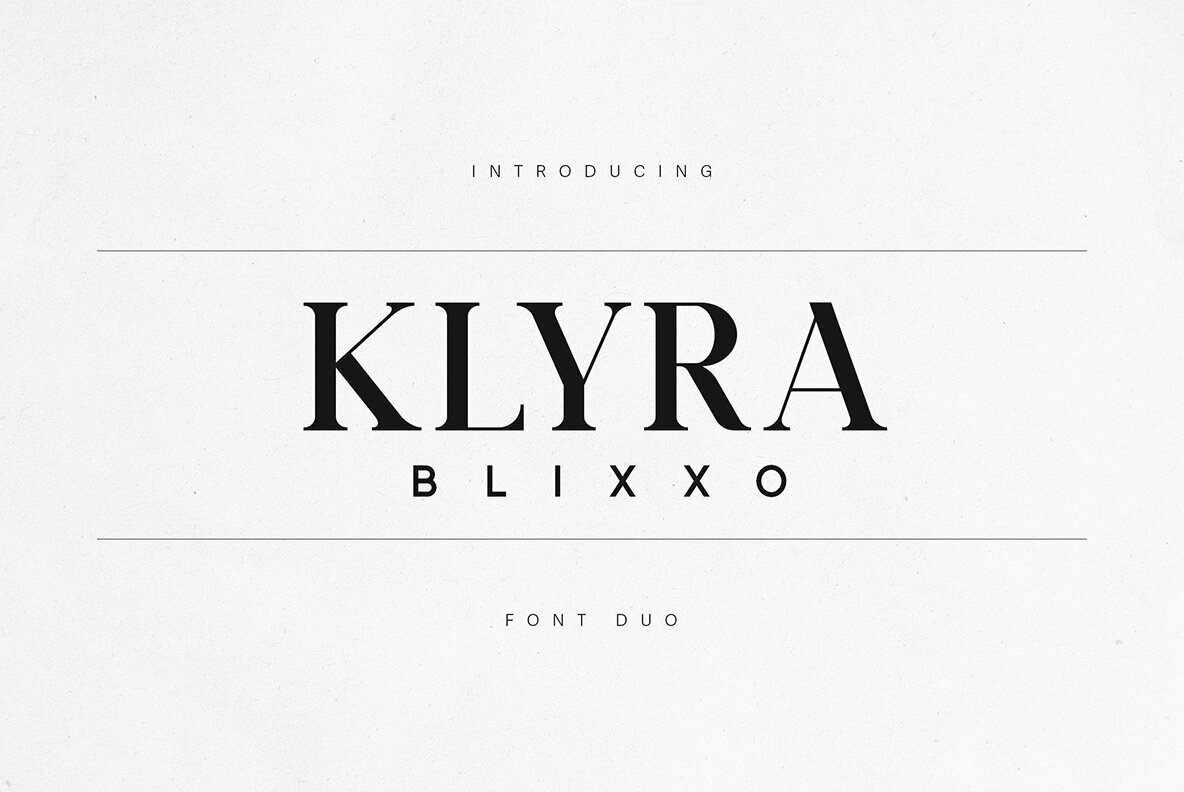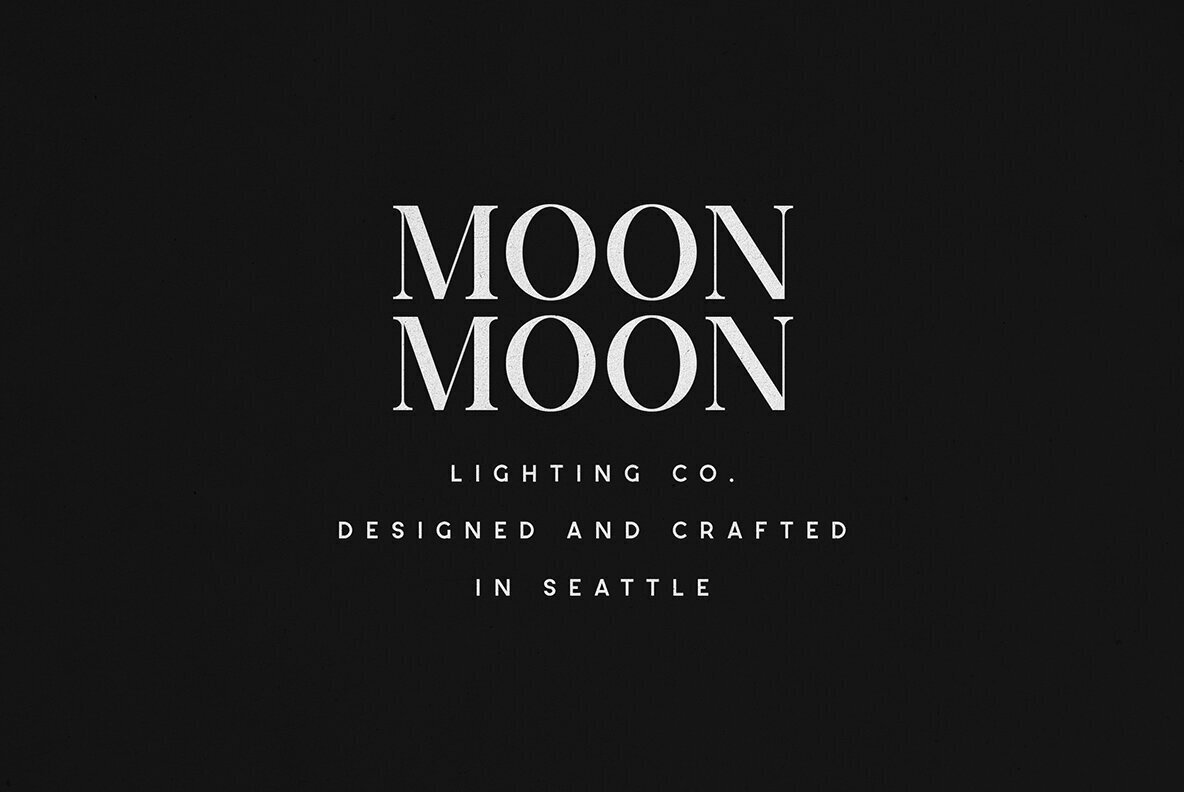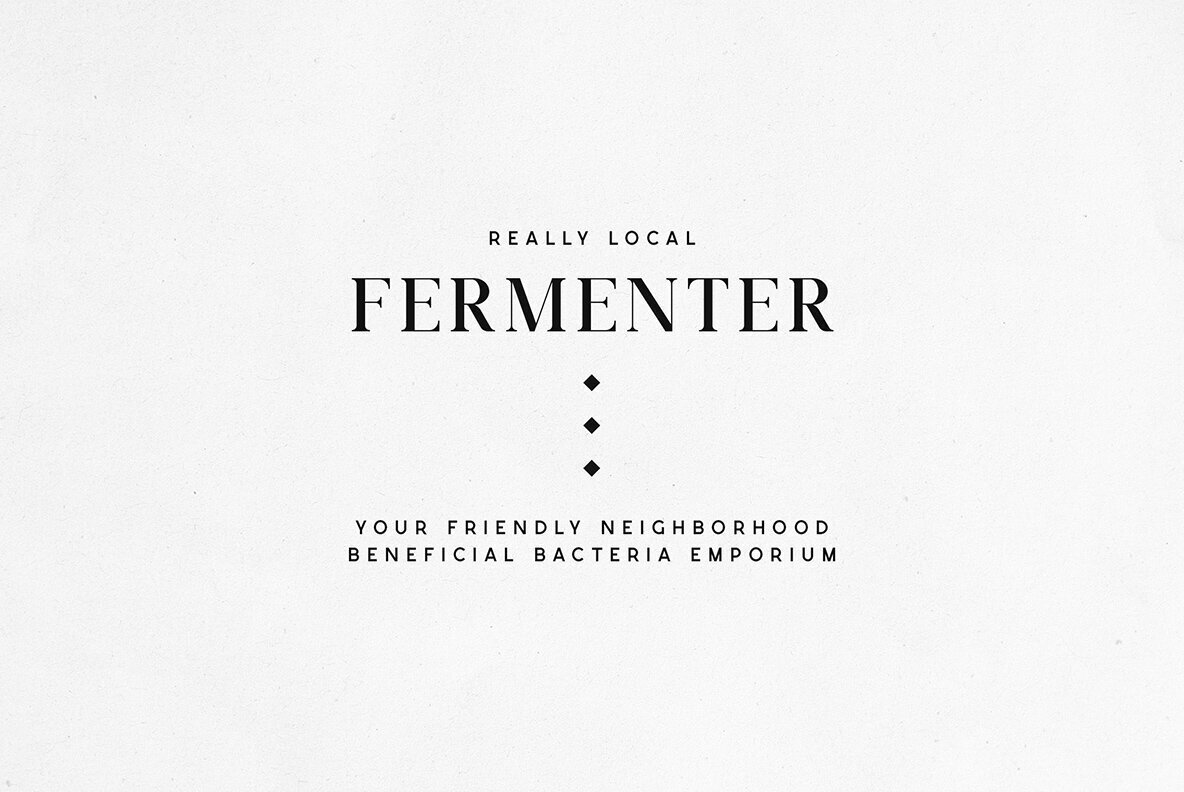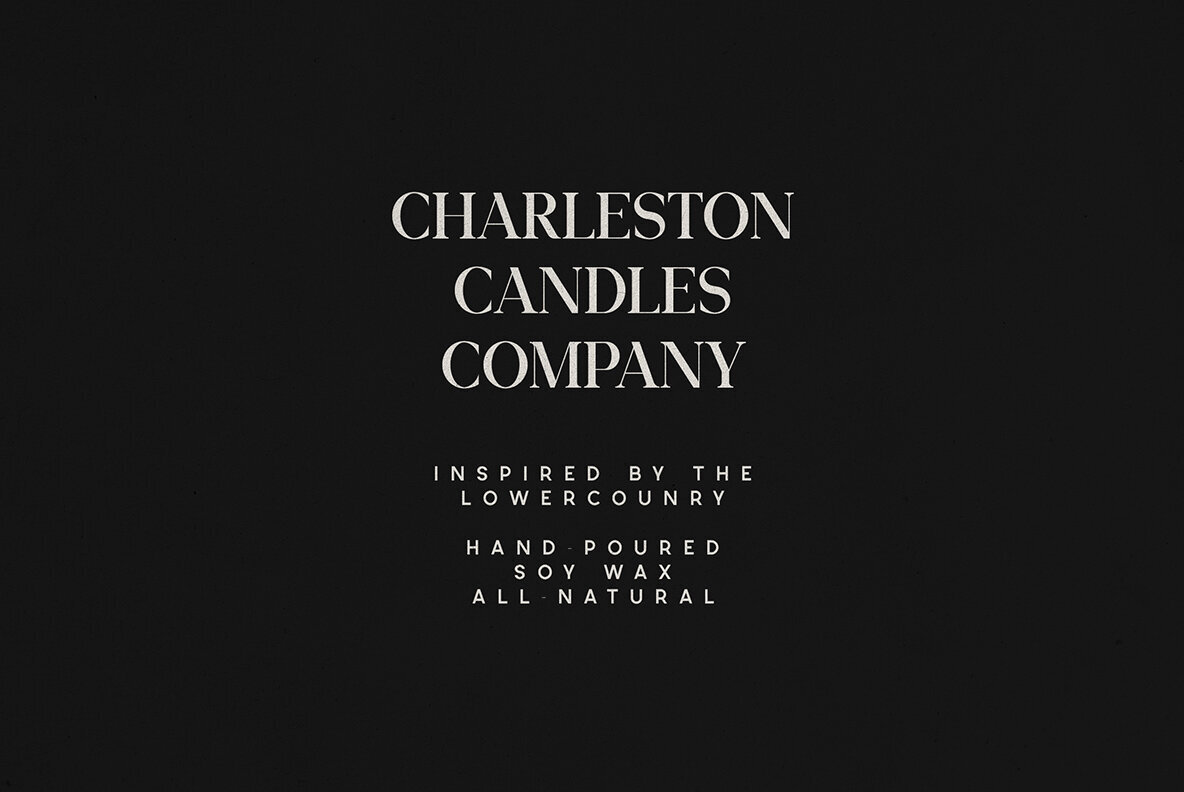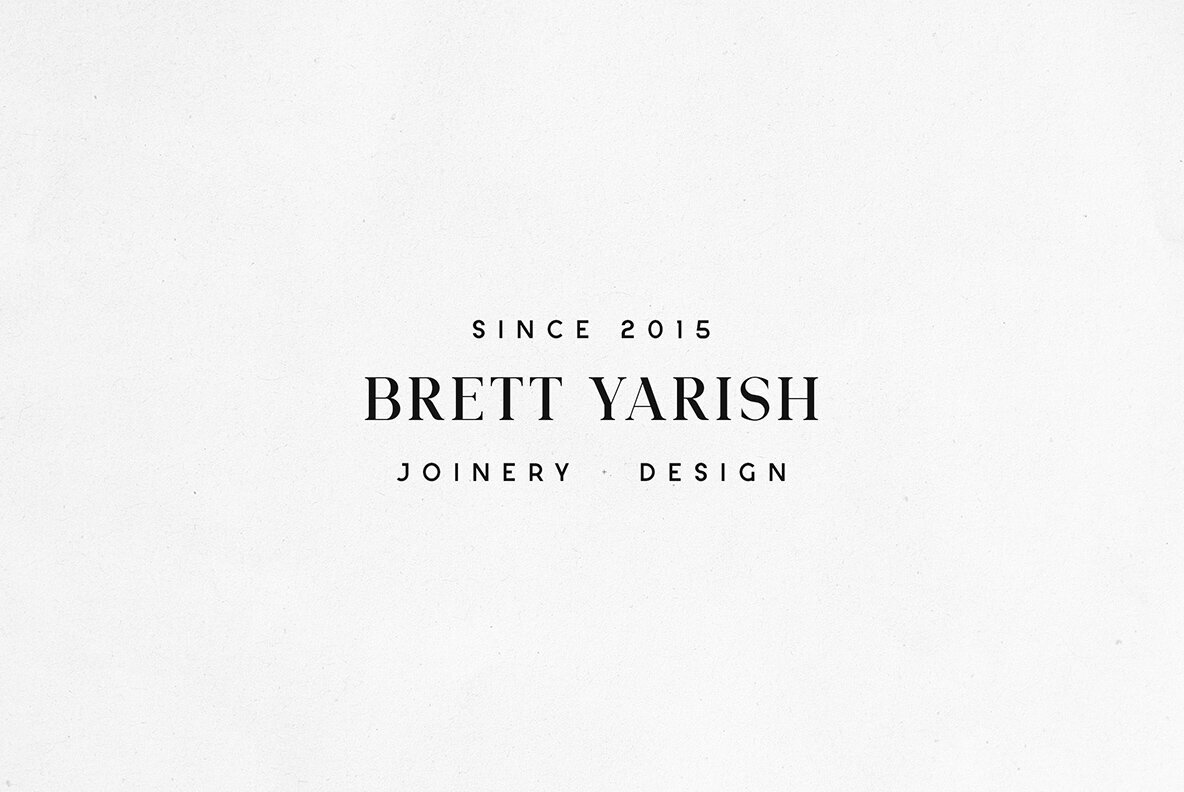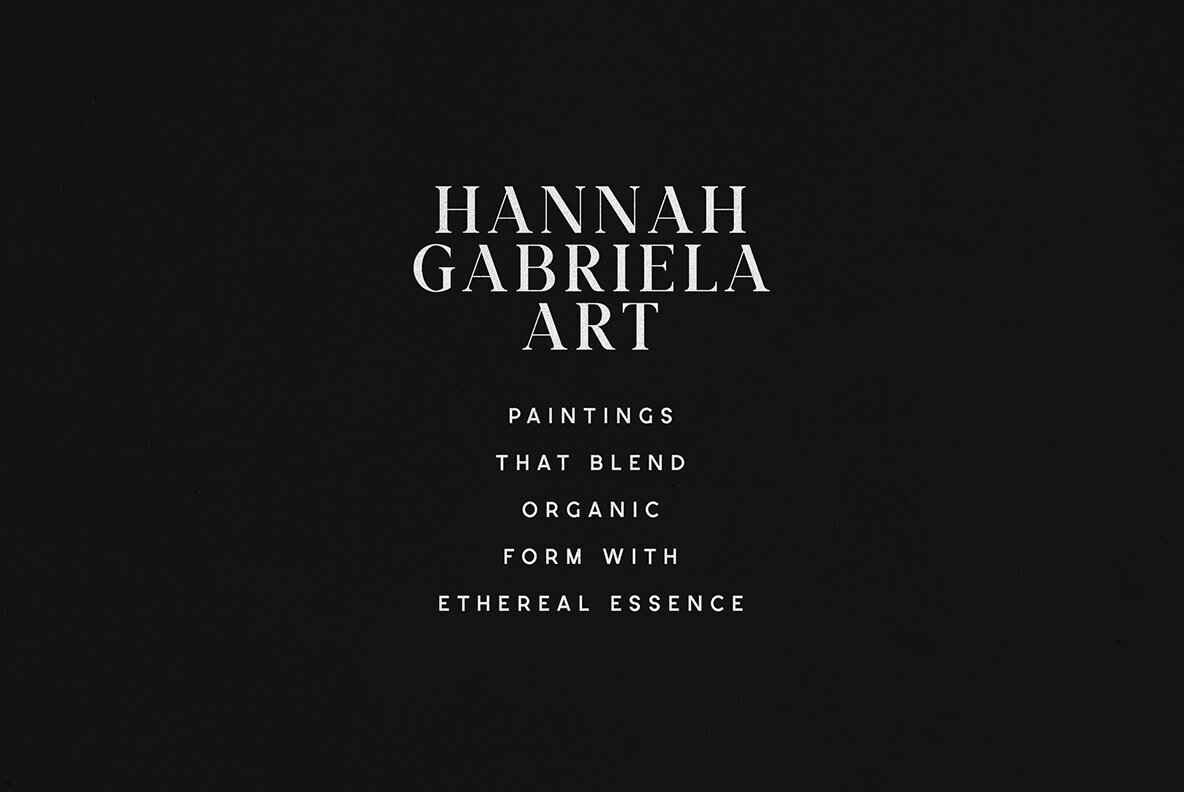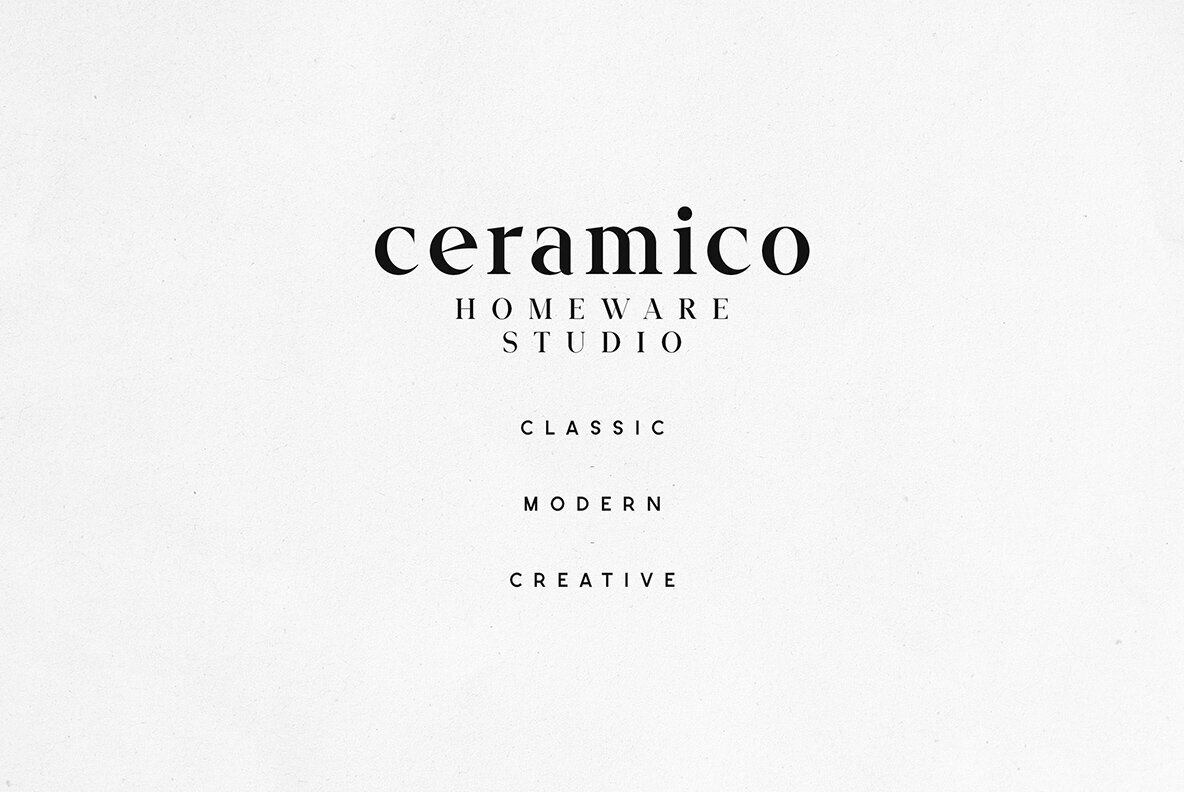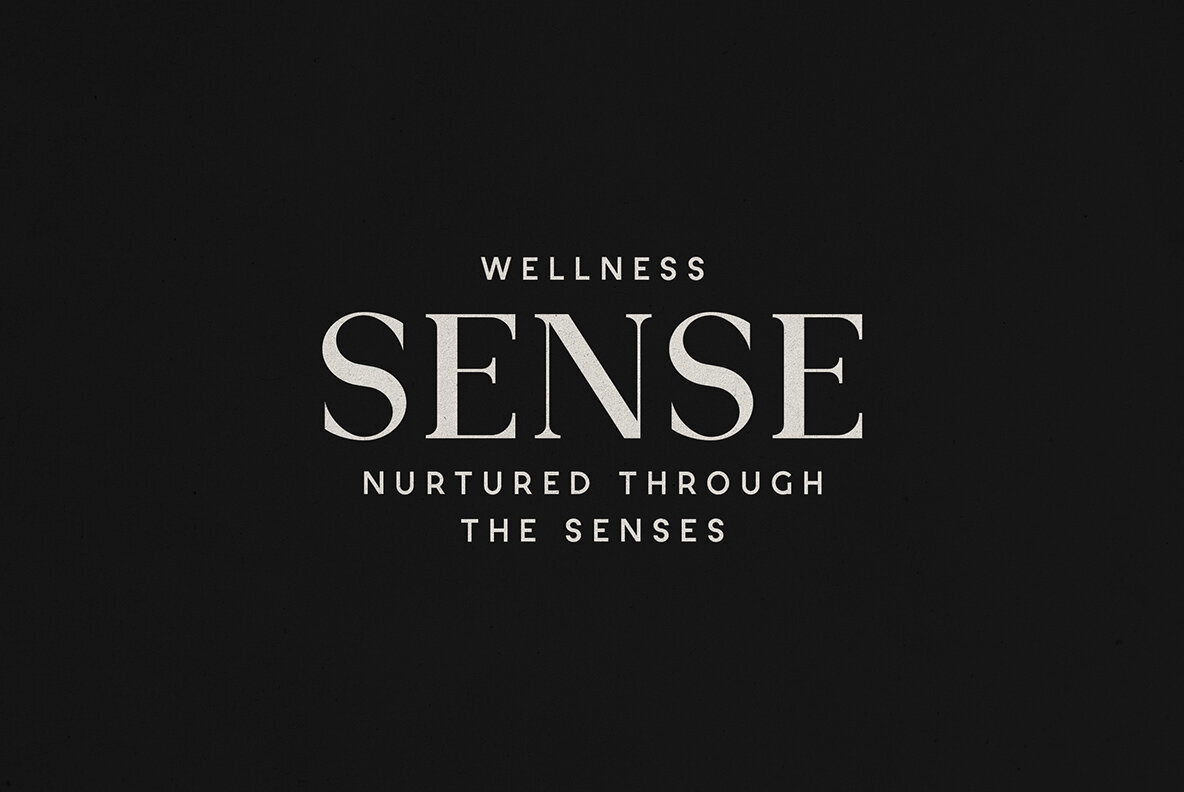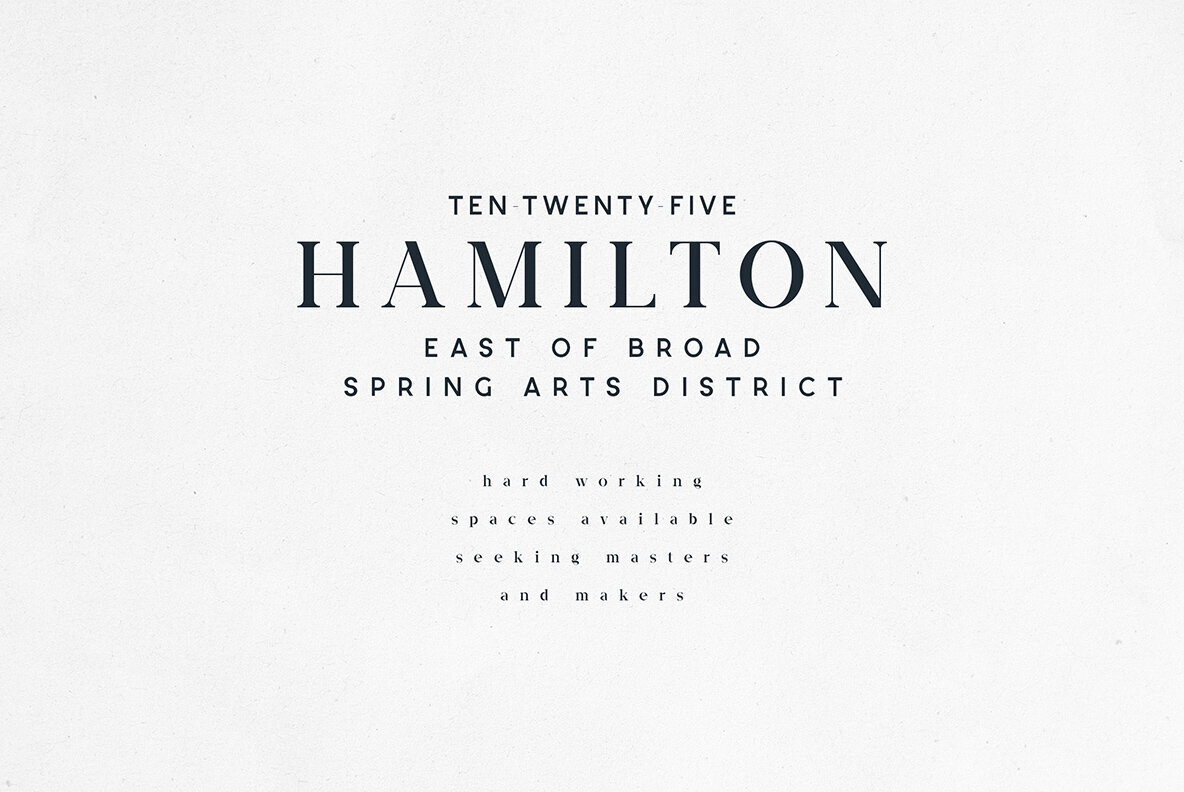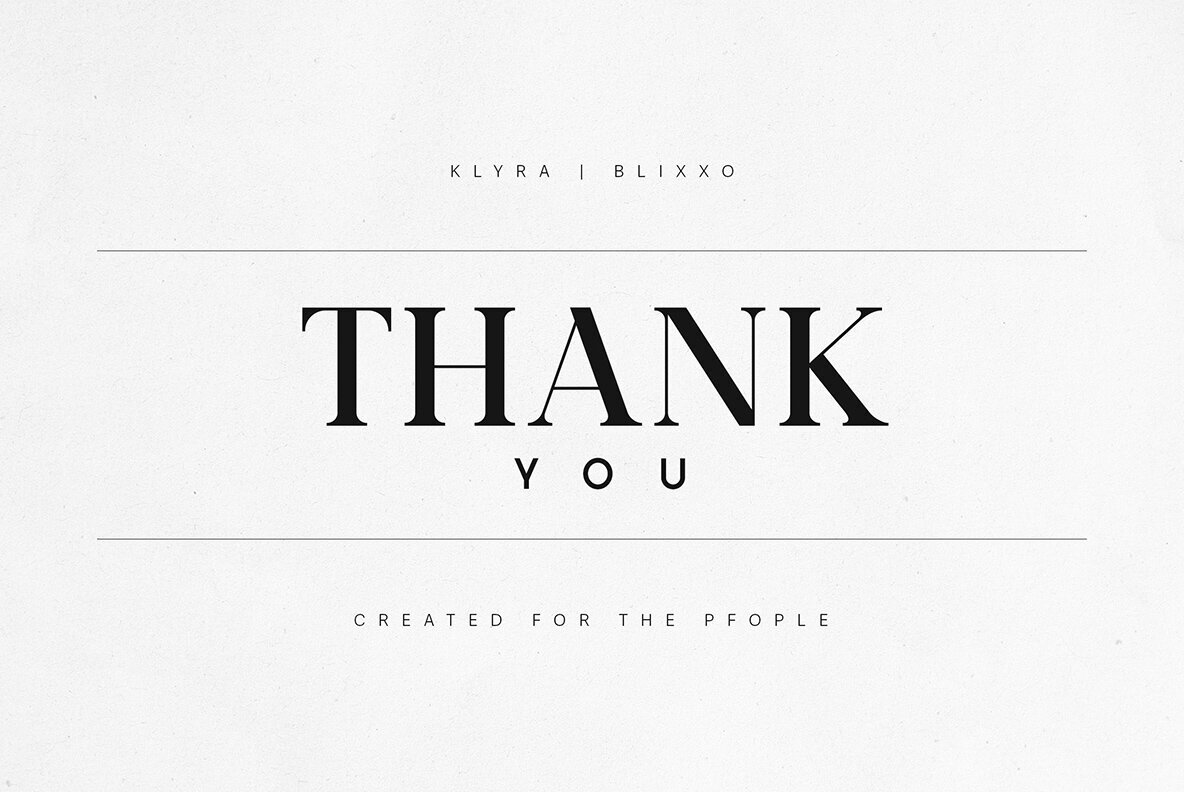
Klyra Blixxo Font Duo
Blixxo Regular
Klyra Regular
Klyra and Blixxo offer a balance of classic elegance and modern minimalism. Klyra stands out with high-contrast serif details, bringing an editorial feel and refined sophistication. Blixxo, the modern sans-serif companion, introduces a polished, clean aesthetic. Use them together or individually for cohesive, versatile branding.Klyra & Blixxo Font Duo
This pairing suits luxury brands, editorial headlines, boutique logos, and minimalist packaging. Each letterforms is thoughtfully designed for clear visual impact, making the font duo a practical choice for enhancing visual storytelling. Whether working on digital platforms or in print, Klyra & Blixxo adapt seamlessly to diverse design needs.Ideal for